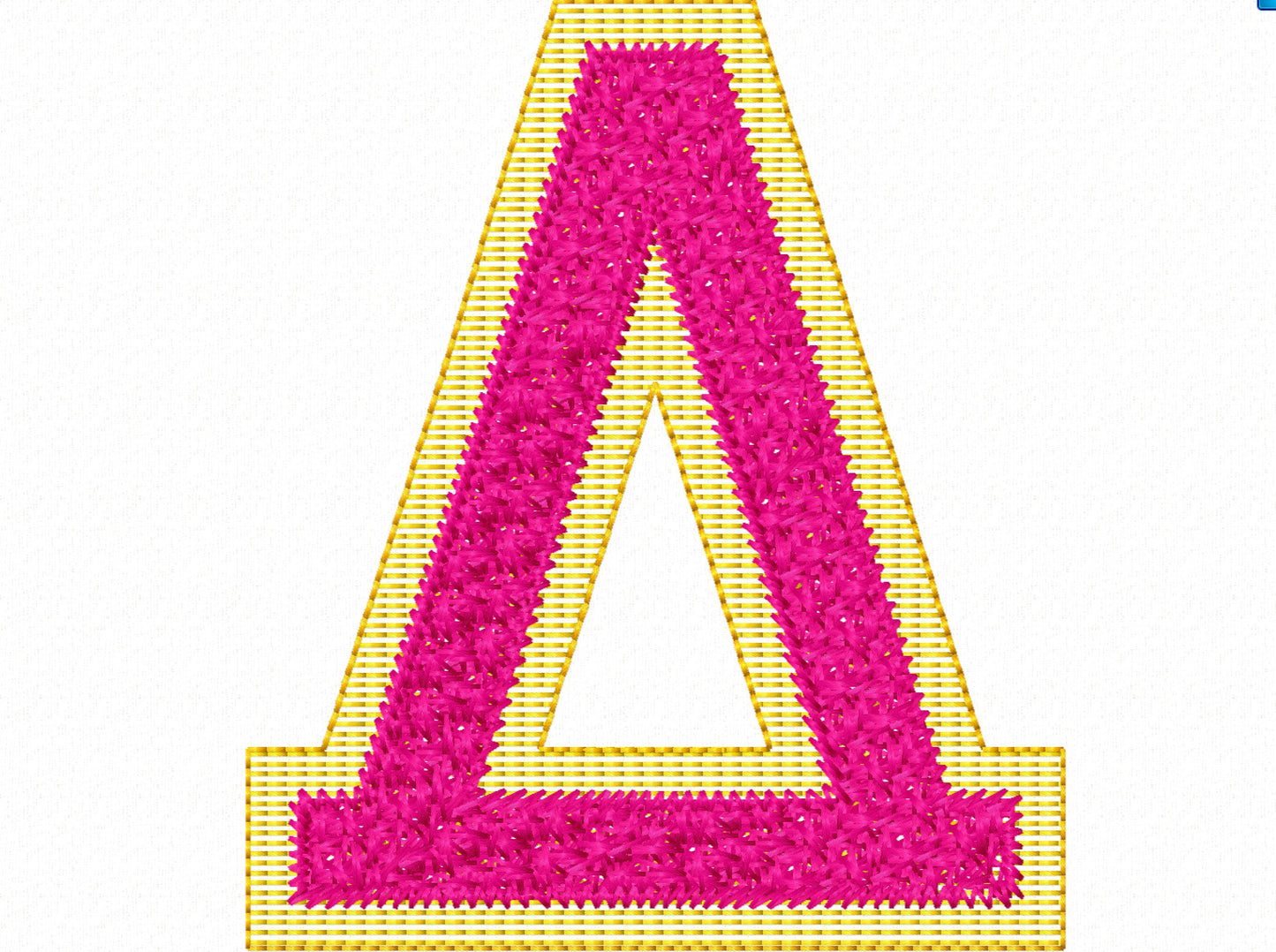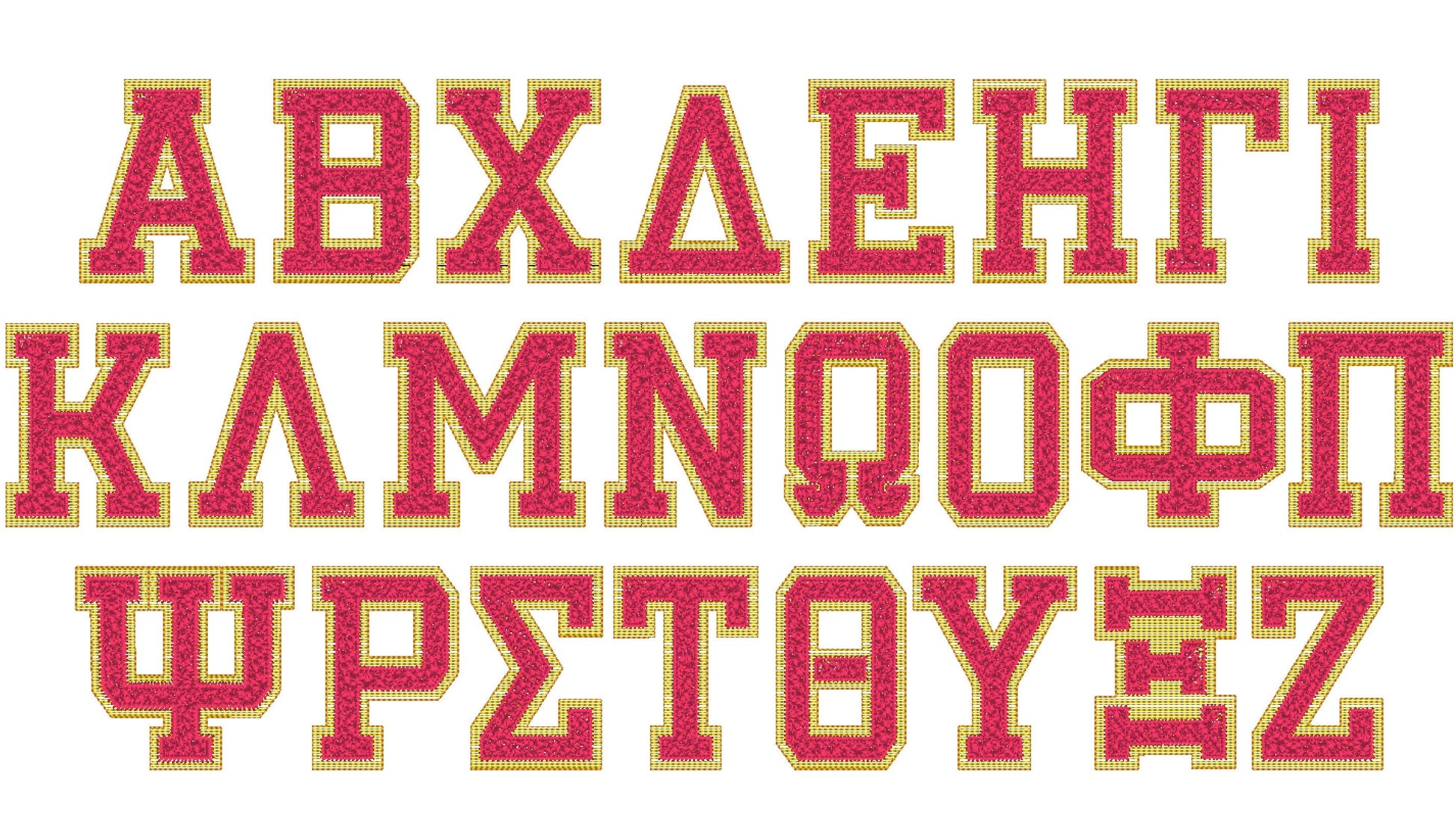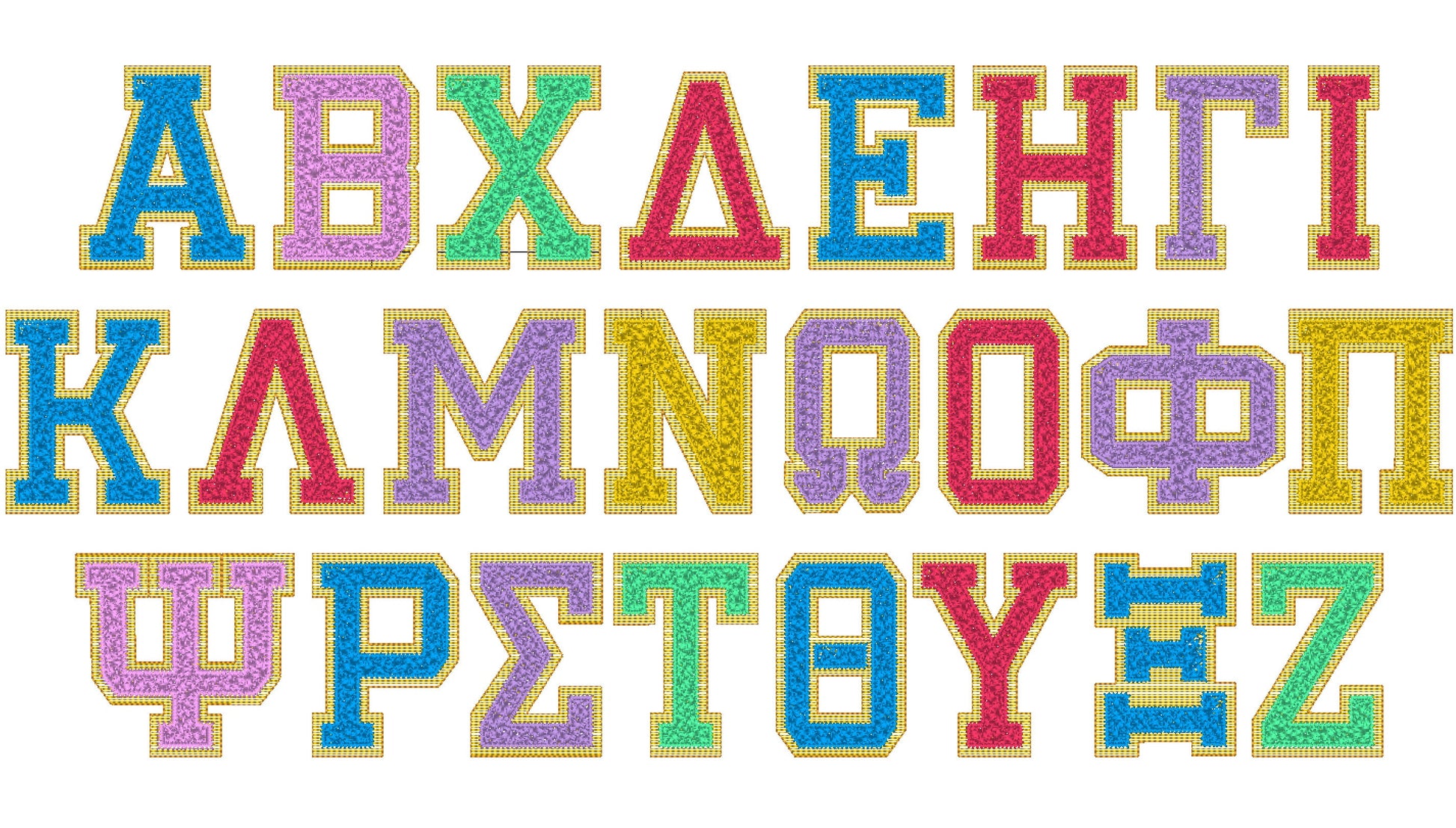
Or click to open the linkGreek letters with faux chenille stitching, made to shine with gold or glitter thread. Made for sorority and fraternity shirts, jackets and bags.
All 24 Greek letters in seven sizes: 2.5, 3, 4, 4.5, 5, 6 and 7 inches. Two colors with a textured chenille-style fill.